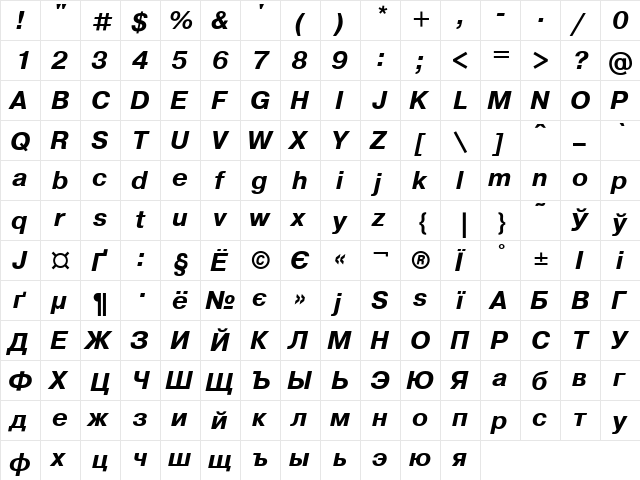
UkrainianPragmatica BoldItalic Font Preview
Design Context for UkrainianPragmatica Typeface
UkrainianPragmatica is a composed and adaptable typeface that performs quietly and consistently across a wide range of design contexts. The dynamic lean of this cut emphasises speed and emphasis in any layout. The heavy weight commands attention and anchors typographic hierarchies.